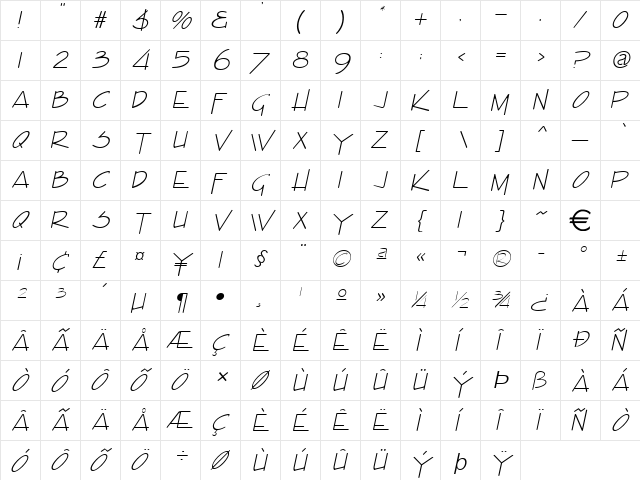
EnviewLight Italic Font Preview
Design Context for EnviewLight Typeface
EnviewLight takes a measured approach to typography — its balanced proportions and neutral character make it a reliable workhorse for both digital and print work. Its italic angle brings a sense of urgency and motion to the letterforms. Its slender proportions lend an understated elegance to any composition.
Pro Tip: Try EnviewLight for annotation and caption copy alongside an upright companion — the contrast in angle creates a dynamic but ordered typographic system.